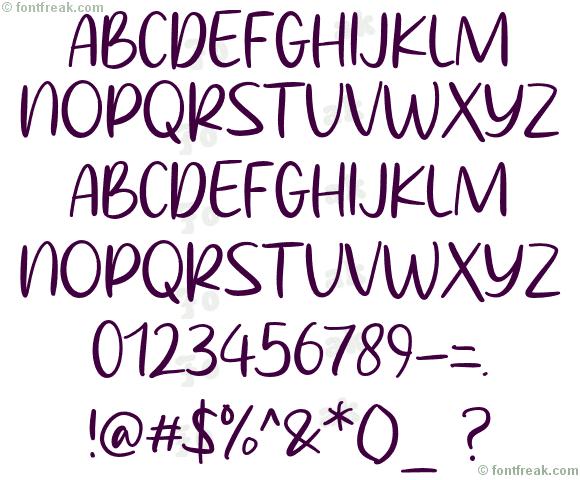
The Quickly
About The Quickly
The Quickly font by MJType is a captivating handwritten typeface that exudes charm and personality. This font features a unique blend of casual elegance, making it perfect for a variety of design projects. Its moderate stroke weight and subtle contrast create an inviting appearance, while the slightly irregular shapes add a touch of authenticity typical of handcrafted typography. The spacing is well-balanced, ensuring legibility across different platforms, which is essential for modern design needs.
The Quickly font shines in several specific use cases. It is an excellent choice for wedding invitations, where its personal touch can evoke a sense of warmth and intimacy. Additionally, it works beautifully for café or restaurant menus, giving a friendly and approachable vibe that attracts customers. Graphic designers will find it ideal for branding projects, especially for small businesses looking to convey a unique identity. It can also elevate social media posts and marketing materials, where capturing attention quickly is crucial. Content creators will appreciate its versatility, adapting it to various themes and styles.
The target audience for The Quickly font includes graphic designers, small business owners, and content creators who seek a distinctive typeface to enhance their projects. This font stands out not only for its aesthetic appeal but also for its ability to infuse creativity and character into any design. With its freeware license, The Quickly font free download allows users to incorporate this charming typeface into their work without any financial commitment, making it a valuable asset for anyone looking to elevate their design game. Its unique handwritten style is sure to leave a lasting impression on viewers, ensuring that your designs stand out in any context.